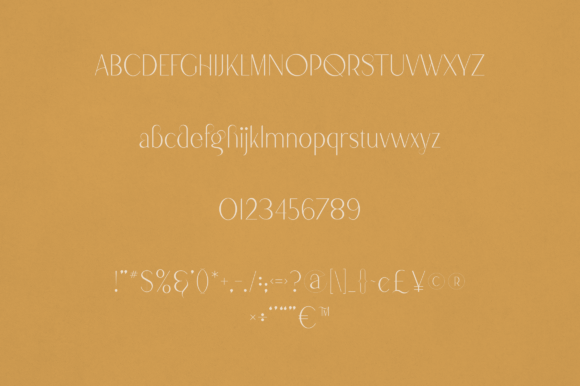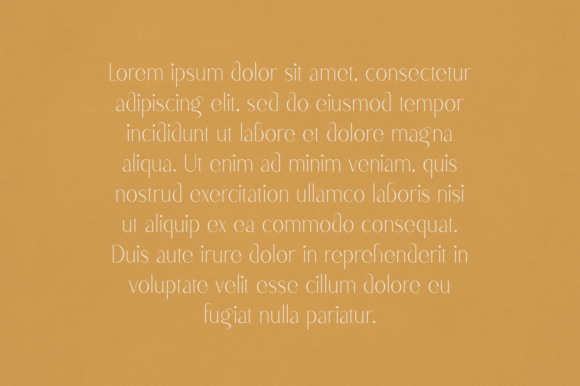
Introduction to Lorelei Font
Have you ever stared at a blank page, feeling like your creative spark is about to fade away? You’re on the hunt for that one font that will elevate your design from ordinary to extraordinary. Well, search no more, because we’ve got just the thing for you – the enchanting Lorelei Font.
Imagine a world where typography is no longer a chore, but a joy to work with. A world where your designs are infused with elegance and sophistication, making every logo, branding, headline, or plain text a true masterpiece. That’s exactly what the Lorelei Font has to offer – a high-quality design resource that will take your creative projects to the next level.
With its transparent background and sleek sans serif design, the Lorelei Font is the perfect addition to any designer’s toolkit. And the best part? It’s available for free download, making it an accessible and valuable resource for designers of all levels.
Key Features of Lorelei Font
- High-quality, elegant design suitable for various creative projects
- Font size: 1000 glyphs, covering a wide range of languages and characters
- Resolution: Optimized for print and digital use, with clear readability at various sizes
- Unique, hand-drawn style with a touch of whimsy, making it perfect for creative projects that require a personal touch
Honest Review: Lorelei Font
I recently had the chance to work with the Lorelei Font and I must say, it’s a beautiful addition to any design project. As a designer, I’m always on the lookout for high-quality fonts that will elevate my work, and Lorelei does just that.
- No bold or italic versions of the font, which can be limiting for certain design projects
- May not be suitable for large body text, as it can become difficult to read
Overall, I’m really impressed with the Lorelei Font. It’s a beautiful, high-quality font that’s perfect for adding a touch of elegance to any design project. With a few tweaks to address the limitations, I think it has the potential to be a go-to font for designers everywhere.
Lorelei Font
The Lorelei Font is a high-quality design resource perfect for creative projects. With its transparent background, this font is ideal for use in a variety of applications.
The Lorelei Font is perfect for:
- Designing business cards and letterheads.
- Creating social media graphics and advertisements.
- Developing branding materials and marketing campaigns.
Comparison to Lorelei Font: Great Vibes Font has a more elegant and sophisticated feel compared to Lorelei Font, making it suitable for high-end design projects.